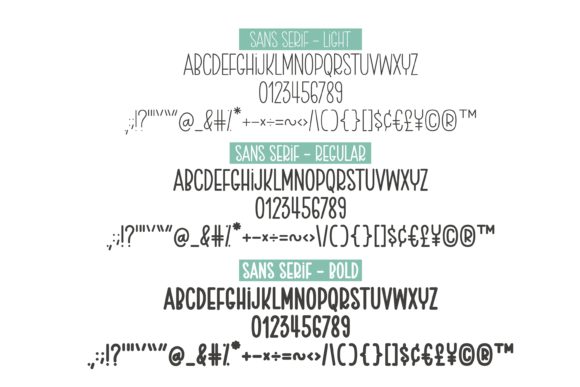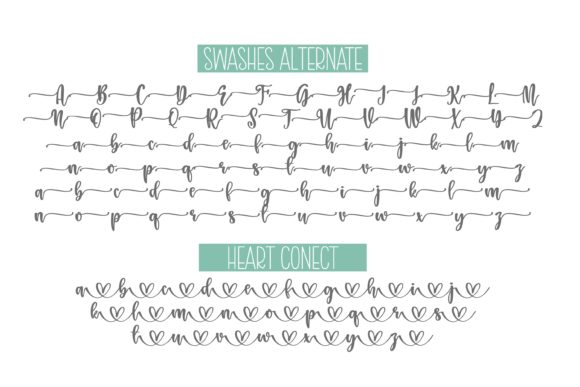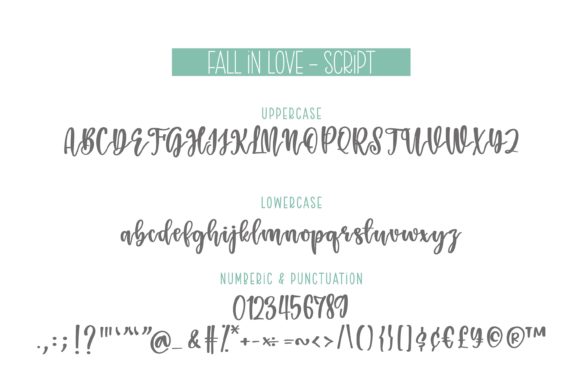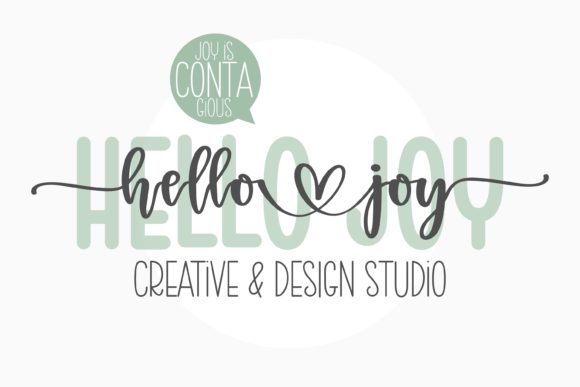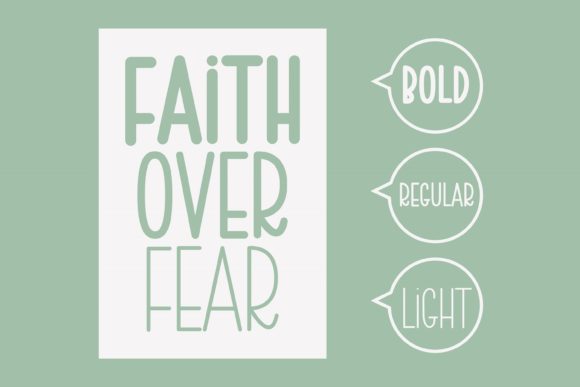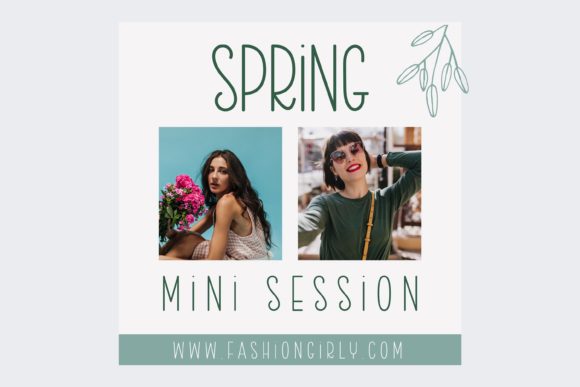
Fall in Love Font: The Perfect Choice for Your Creative Projects
Are you looking for a font that can add a touch of charm and delicacy to your creative projects? Look no further than the Fall in Love font, a duo-styled handwritten font that is sure to capture your heart. In this article, we’ll take a closer look at the features and benefits of this beautiful font, and explore how it can help you take your designs to the next level.
What is Fall in Love Font?
Fall in Love is a unique and elegant handwritten font that is designed to evoke feelings of romance and whimsy. With its delicate strokes and charming letterforms, this font is perfect for a wide range of creative projects, from wedding invitations and stationery to branding and packaging.
One of the standout features of Fall in Love is its duo-styled design, which offers two distinct styles in one font. This allows you to mix and match different letters and swashes to create a truly unique look that reflects your personal style.
Fall in Love font is PUA (Private Use Area) encoded, which means that you can access all of the glyphs and swashes with ease. PUA encoding allows designers to access a wide range of special characters and glyphs that are not available in standard fonts, giving you more creative freedom and flexibility.
With Fall in Love, you can easily access the font’s extensive library of glyphs and swashes, including ligatures, ornaments, and other decorative elements. This makes it easy to add a touch of elegance and sophistication to your designs, without having to spend hours searching for the perfect character or symbol.
Fall in Love font is a versatile and adaptable font that is perfect for designers and crafters of all levels. Whether you’re creating digital designs or handmade crafts, this font is sure to inspire your creativity and help you produce stunning results.
For designers, Fall in Love offers a wide range of possibilities for branding, packaging, and advertising projects. Its elegant and refined design makes it perfect for luxury brands, while its playful and whimsical feel makes it suitable for more creative and artistic projects.
For crafters, Fall in Love is a dream come true. With its delicate and charming design, this font is perfect for creating handmade cards, invitations, and other paper crafts. You can use it to add a personal touch to your DIY projects, or to create stunning digital images that showcase your crafting skills.
How to Use Fall in Love Font
- Experiment with different font sizes and colors to find the perfect look for your project.
- Use the font’s glyphs and swashes to add decorative elements and flourishes to your designs.
- Mix and match different letters and swashes to create a unique and personalized look.
- Don’t be afraid to get creative and try out new and innovative design ideas!
In conclusion, Fall in Love font is a beautiful and versatile font that is perfect for designers and crafters of all levels. With its delicate and charming design, PUA encoding, and extensive library of glyphs and swashes, this font is sure to inspire your creativity and help you produce stunning results.
Whether you’re creating digital designs or handmade crafts, Fall in Love font is a great choice for any project that requires a touch of elegance, whimsy, and romance. So why wait? Download Fall in Love font today and start falling in love with your designs!